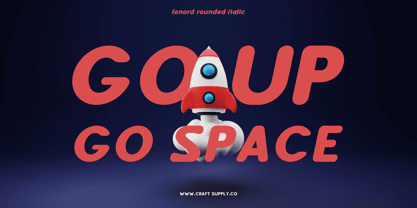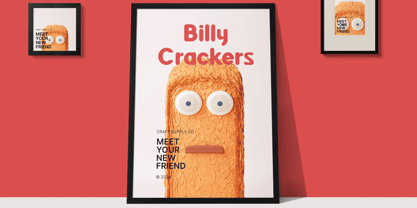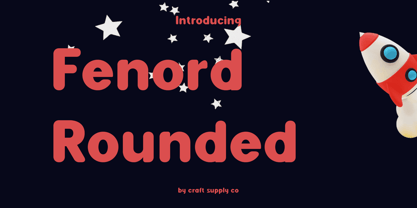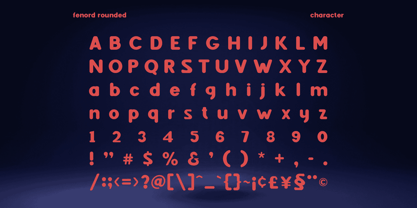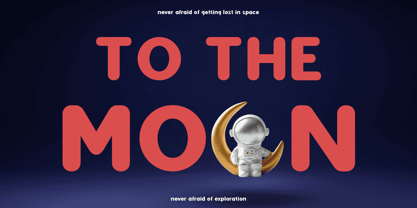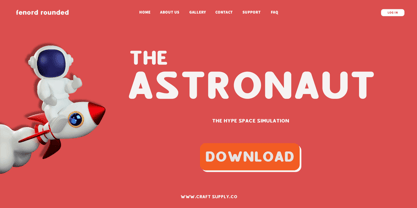
Fenord Rounded
by Craft Supply Co
The Fenord Rounded Font Family was designed by Trio Nazzar Saputra, Wahyu Hadi Yuana and published by Craft Supply Co. Fenord Rounded contains 2 styles and family package options.
Fenord Rounded: The Bold and Cute Sans Serif
Distinctive Rounded Shapes
Fenord Rounded features charmingly rounded sans serif letterforms that exude a playful and friendly vibe. Each character is meticulously crafted to maintain a consistent and appealing roundness.
Bold and Eye-Catching
With its bold weight, This font commands attention and makes a statement in any design. The thick strokes add emphasis and ensure legibility even at smaller sizes.
Irresistibly Cute Aesthetics
The inherent cuteness of This font makes it perfect for projects that require a touch of whimsy and charm. Its rounded edges and friendly demeanor bring warmth to any design.
Versatile Usage
From logos to packaging and from headlines to social media graphics, This font offers versatility in application. Its bold yet cute appearance makes it suitable for a wide range of design projects.
Bold, Cute, and Versatile
This font stands out as a bold and cute sans serif font with rounded shapes that add a playful touch to any design. Its versatility and legibility make it an excellent choice for various projects, ensuring that your message is both impactful and endearing.